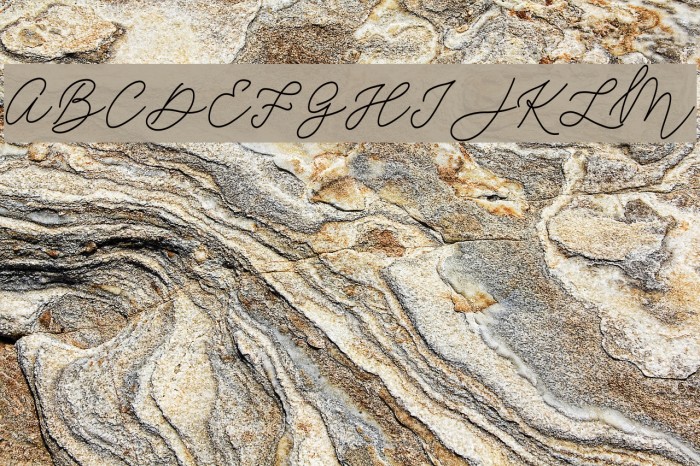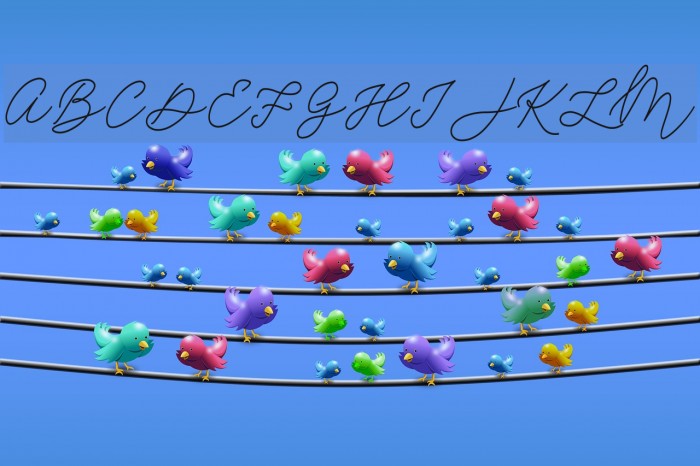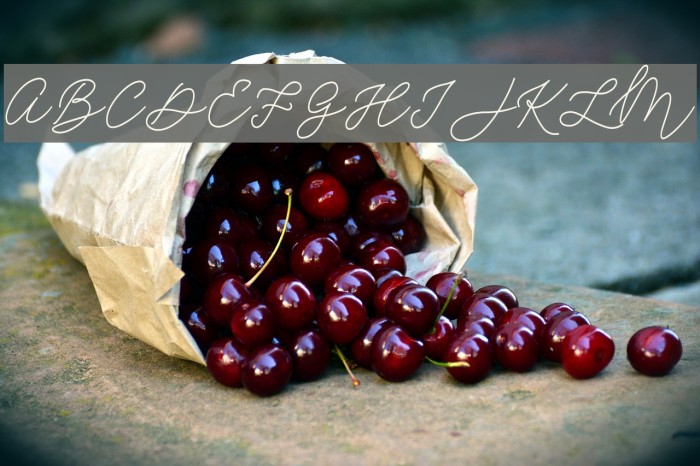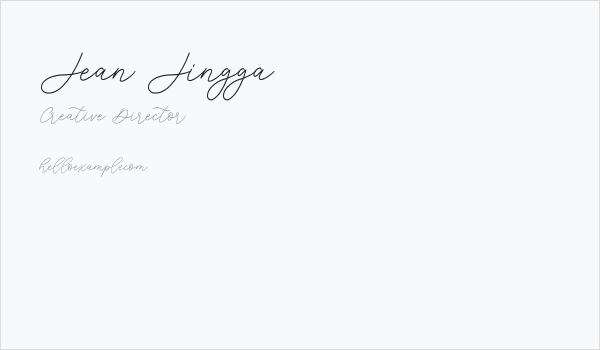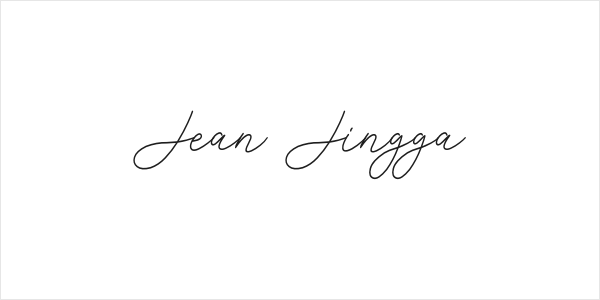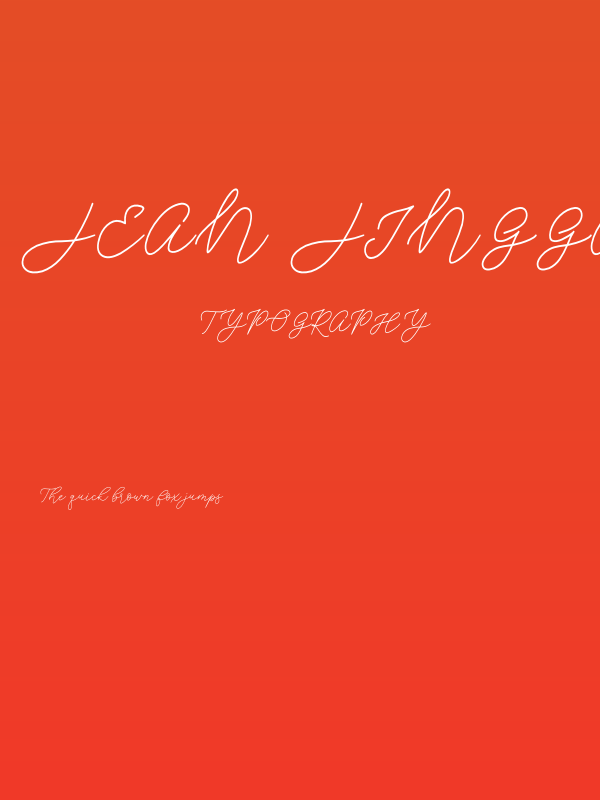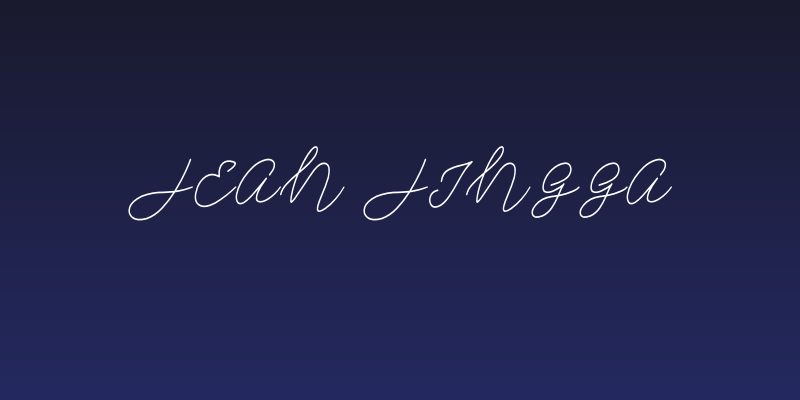
Jean Jingga Font
Jean Jingga Description
This font exudes elegance and fluidity with its cursive, handwritten style. The letters are interconnected, creating a seamless flow that mimics natural handwriting. The uppercase letters are slightly more ornate, with graceful loops and curves, while the lowercase letters maintain a consistent, flowing baseline. The strokes are thin and delicate, adding to the font's sophisticated appearance. This style is ideal for conveying a personal touch, making it suitable for invitations, greeting cards, and other formal or decorative uses. The overall aesthetic is both classic and modern, appealing to a wide range of design preferences.
| Overall Style | Elegant, Classic |
| Use Case | Invitations, Decorative text, Personal branding |
| Proposed Projects | Ideal for wedding invitations, greeting cards, personal branding, and decorative projects. |